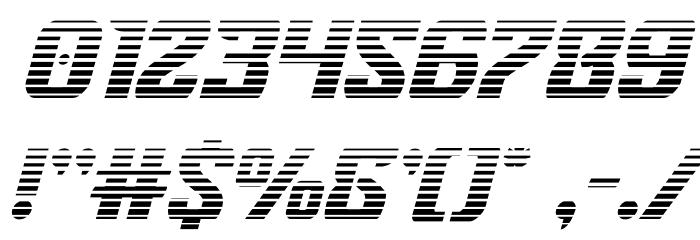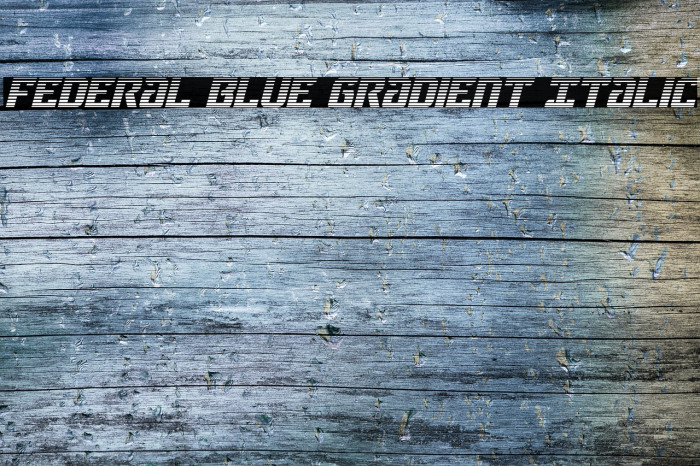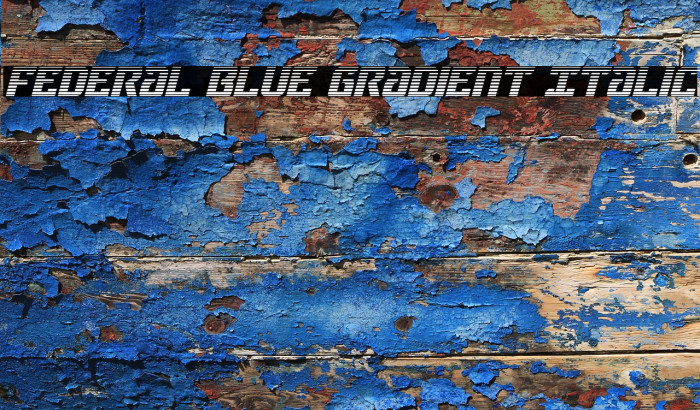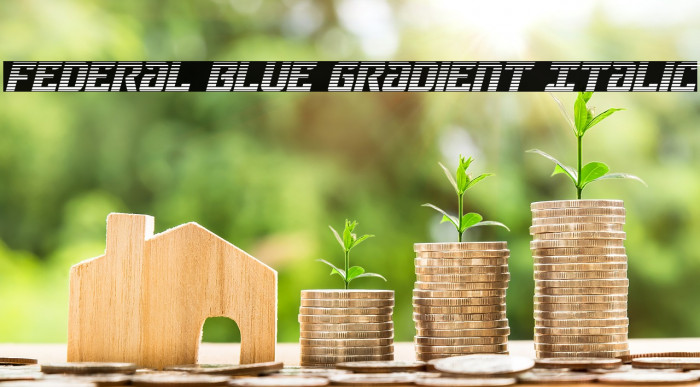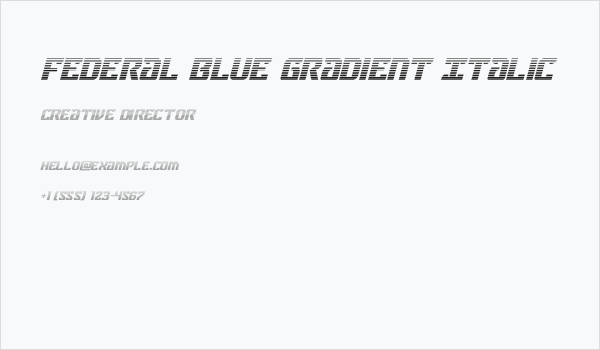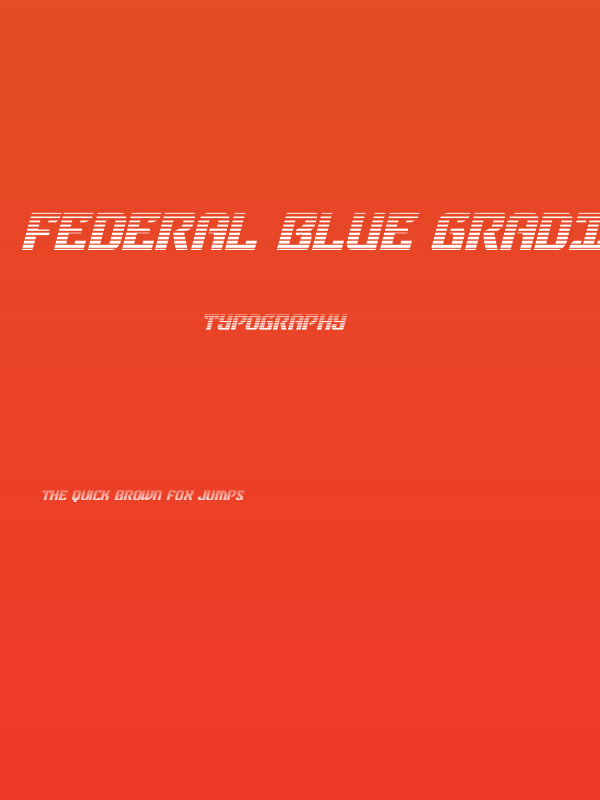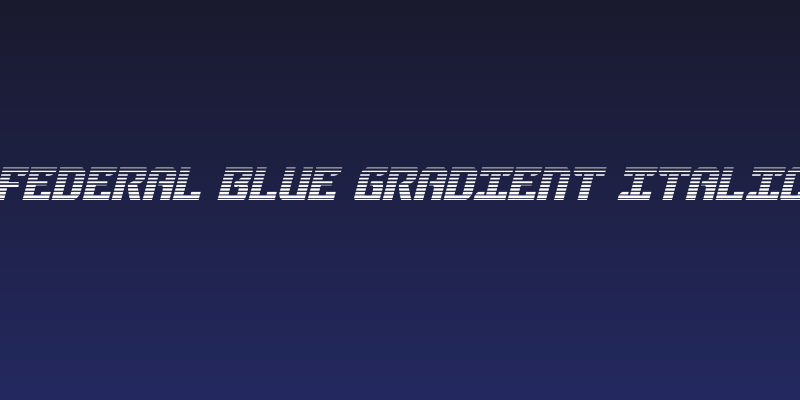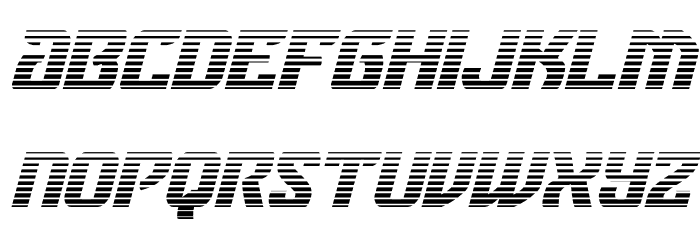
Federal Blue Gradient Italic Font
Federal Blue Gradient Italic Description
This font features a dynamic and futuristic design with a distinct italic slant, giving it a sense of motion and speed. The characters are composed of horizontal lines that create a striped effect, adding a unique texture and depth. This style is reminiscent of digital or technological themes, making it suitable for modern and innovative projects. The uppercase and lowercase letters maintain a consistent style, while the numerals and special characters are designed to match the overall aesthetic. The font's bold appearance and high contrast between the strokes and spaces make it highly legible, even at smaller sizes.
| Proposed Projects | Ideal for tech branding, sports team logos, futuristic posters, and digital interfaces. |